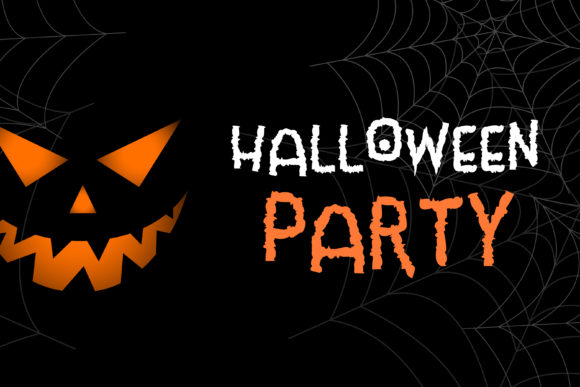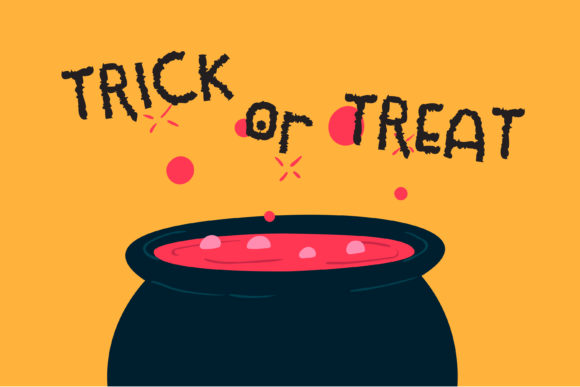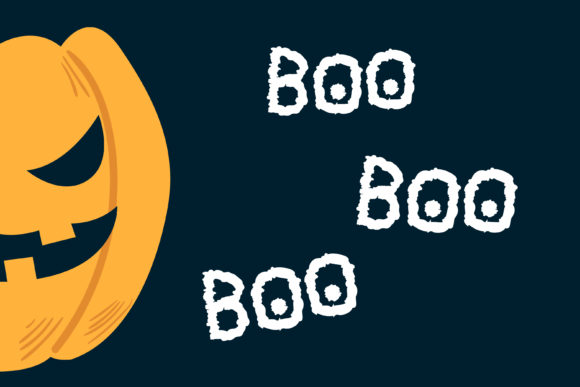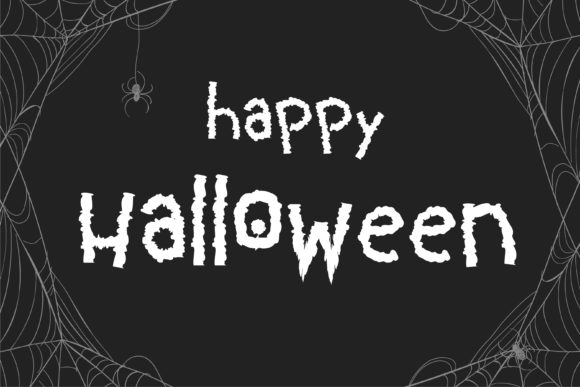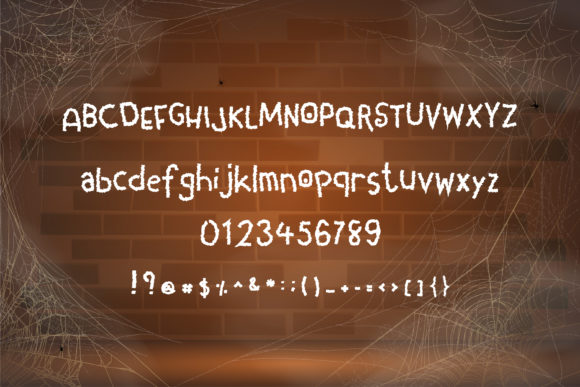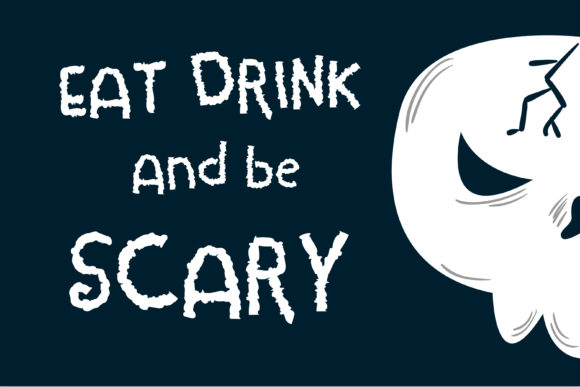
Eat Drink and Be Scary Font: A Quirky Display Font for Every Occasion
Eat Drink and Be Scary is a unique and interesting display font that is sure to add a touch of personality to any design project. A little bit quirky, this font looks incredibly adept on a wide variety of contexts, making it a versatile choice for designers and crafters alike. In this article, we’ll take a closer look at the Eat Drink and Be Scary font, its features, and how you can use it to elevate your designs.
The Origins of Eat Drink and Be Scary Font
The Eat Drink and Be Scary font is a display font that was designed to stand out from the crowd. Its quirky and playful design makes it perfect for use in a variety of contexts, from Halloween-themed designs to more general use in craft projects, invitations, and more. The font’s unique design is sure to grab attention and add a touch of whimsy to any project.
Key Features of Eat Drink and Be Scary Font
So, what makes the Eat Drink and Be Scary font so special? Here are just a few of its key features:
- Unique and quirky design: The Eat Drink and Be Scary font has a one-of-a-kind design that is sure to stand out from more traditional fonts.
- Highly versatile: This font can be used in a wide range of contexts, from Halloween-themed designs to more general use in craft projects, invitations, and more.
- Easy to read: Despite its quirky design, the Eat Drink and Be Scary font is still easy to read, making it perfect for use in titles, headings, and other display text.
- Supports a wide range of languages: The Eat Drink and Be Scary font supports a wide range of languages, making it a great choice for designers and crafters who work with international clients or want to create designs that can be used by people all over the world.
Using Eat Drink and Be Scary Font in Your Designs
So, how can you use the Eat Drink and Be Scary font in your designs? Here are a few ideas to get you started:
- Halloween-themed designs: The Eat Drink and Be Scary font is perfect for use in Halloween-themed designs, such as invitations, party decorations, and more.
- Craft projects: This font is also great for use in craft projects, such as scrapbooking, card making, and other paper crafts.
- Invitations and announcements: The Eat Drink and Be Scary font is a great choice for invitations and announcements, adding a touch of personality and whimsy to any event.
- Signs and displays: This font is also perfect for use in signs and displays, such as store signs, exhibit displays, and more.
Tips for Getting the Most Out of Eat Drink and Be Scary Font
Here are a few tips for getting the most out of the Eat Drink and Be Scary font:
- Use it sparingly: While the Eat Drink and Be Scary font is a lot of fun, it can be overwhelming if used too much. Use it sparingly to add a touch of personality to your designs.
- Pair it with other fonts: The Eat Drink and Be Scary font pairs well with a wide range of other fonts, so don’t be afraid to experiment with different combinations.
- Experiment with different colors and textures: The Eat Drink and Be Scary font looks great in a wide range of colors and textures, so don’t be afraid to experiment and find the perfect combination for your design.
The Eat Drink and Be Scary font is a unique and interesting display font that is sure to add a touch of personality to any design project. Its quirky and playful design makes it perfect for use in a wide range of contexts, from Halloween-themed designs to more general use in craft projects, invitations, and more. With its highly versatile design, ease of use, and wide range of language support, the Eat Drink and Be Scary font is a great choice for designers and crafters alike.
Whether you’re looking to add a touch of whimsy to your designs or simply want to try out a new font, the Eat Drink and Be Scary font is definitely worth checking out. So why not give it a try and see how it can elevate your designs?